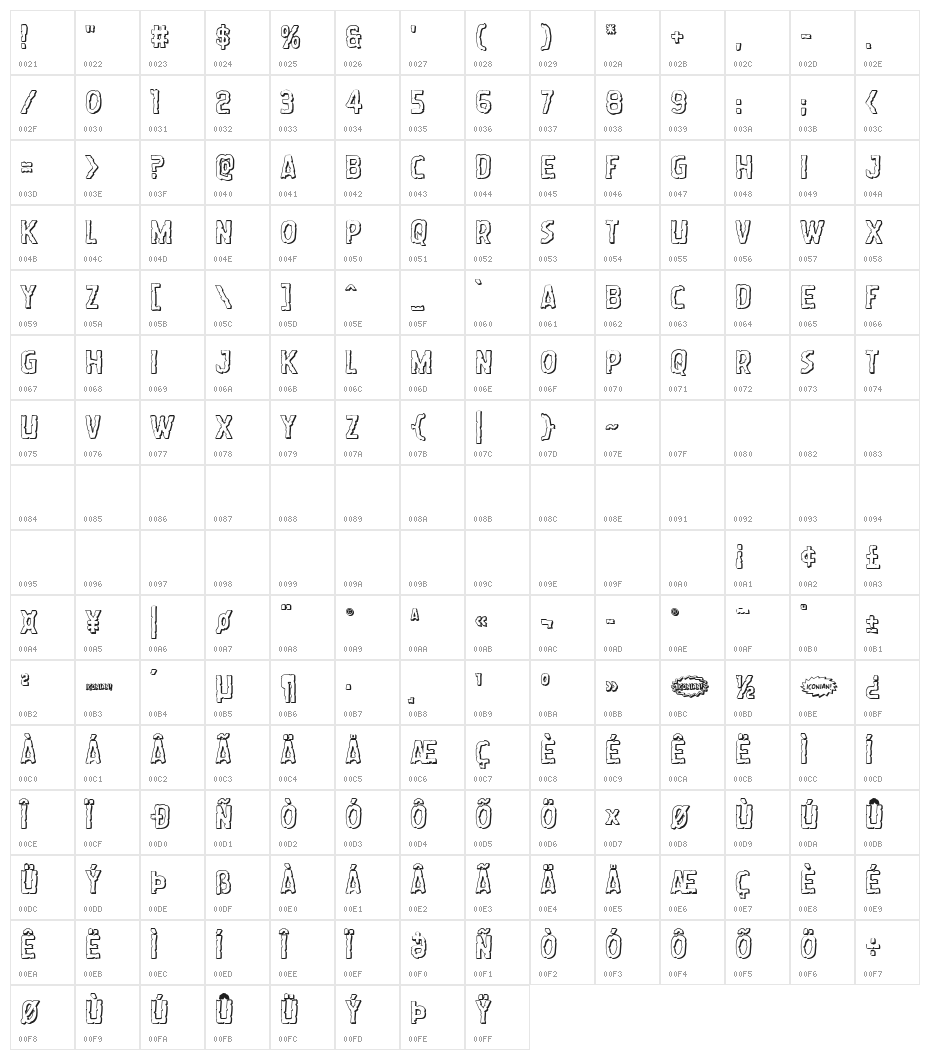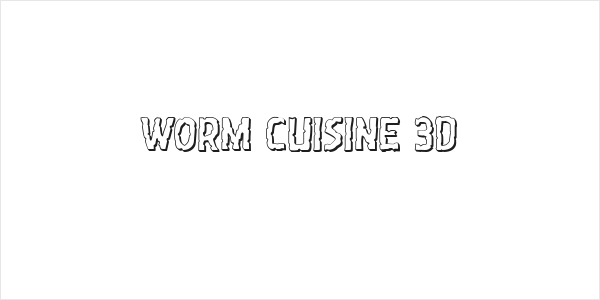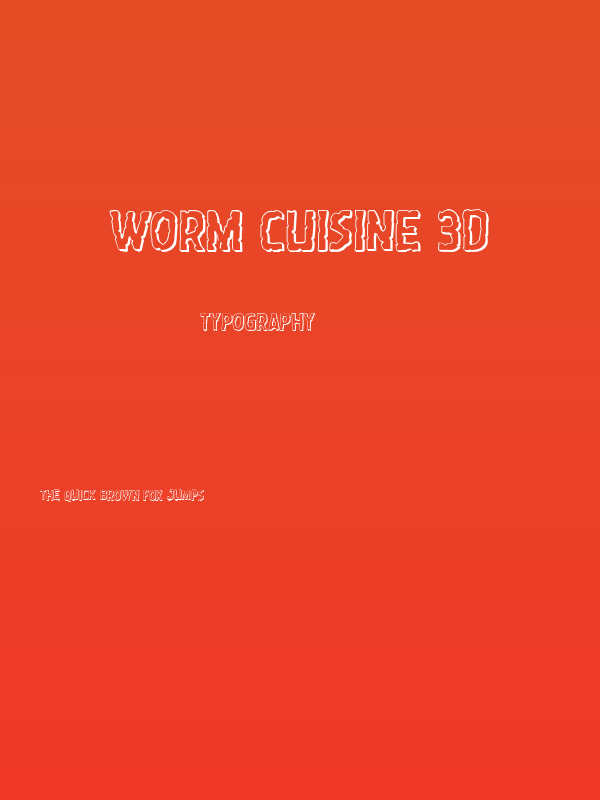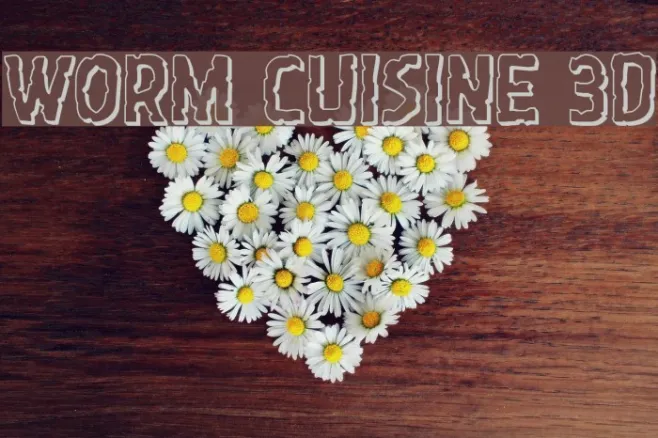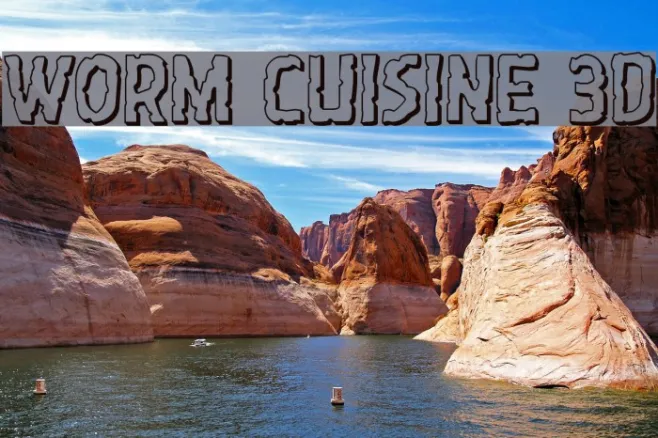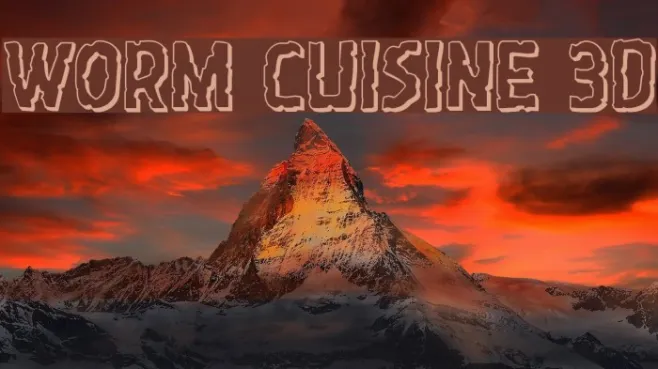
Worm Cuisine 3D Font
Worm Cuisine 3D Description
This font features a playful and quirky design with a 3D effect that gives each character a worm-like appearance. The letters are bold and outlined, creating a sense of depth and texture. The irregular, wavy edges add a dynamic and fun element, making it stand out as a decorative choice. The uppercase and lowercase letters maintain a consistent style, while the numbers and special characters complement the overall theme. This font is perfect for projects that require a unique and eye-catching look.
| Proposed Projects | Ideal for children's books, playful branding, event posters, and creative packaging designs. |